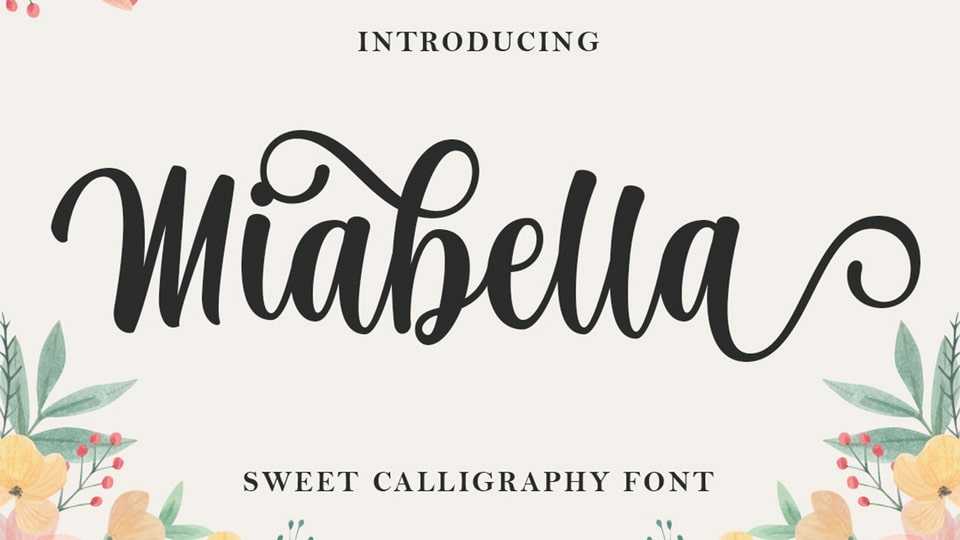
Download Miabella font, an one-of-a-kind script with classic touch and very readable at glance, perfect for you who needs a typeface for especially logotype, apparel, invitation.